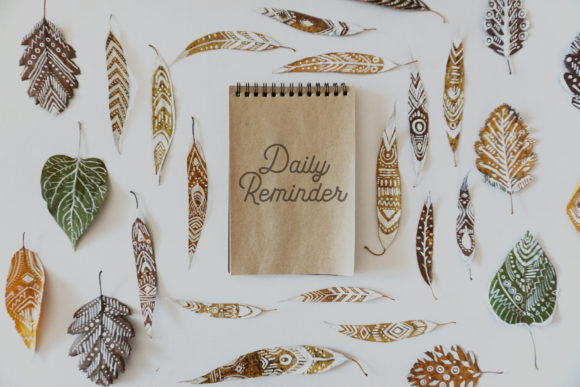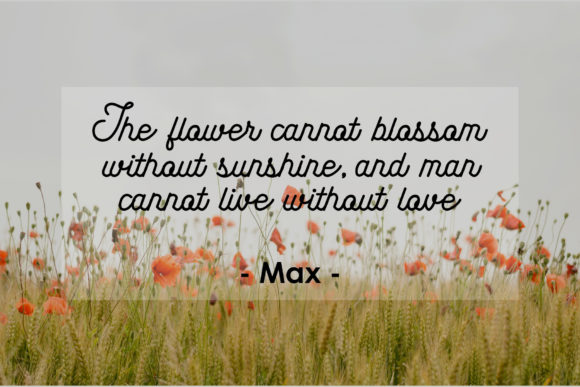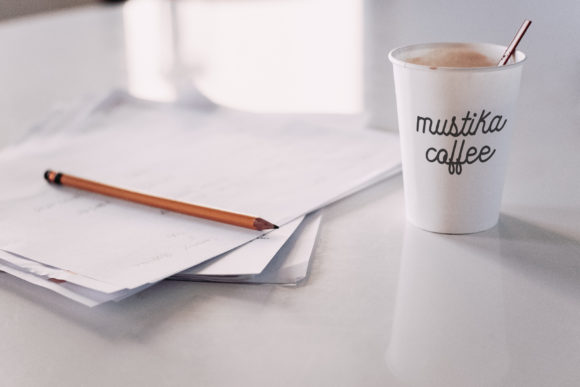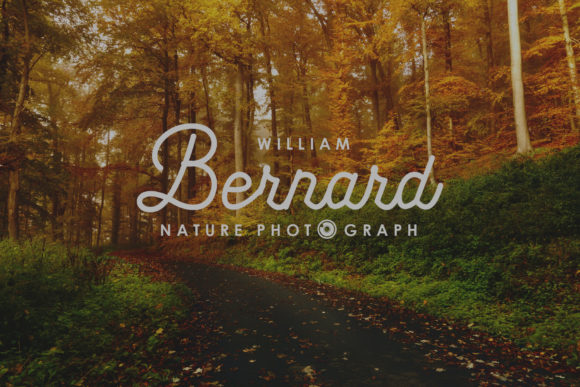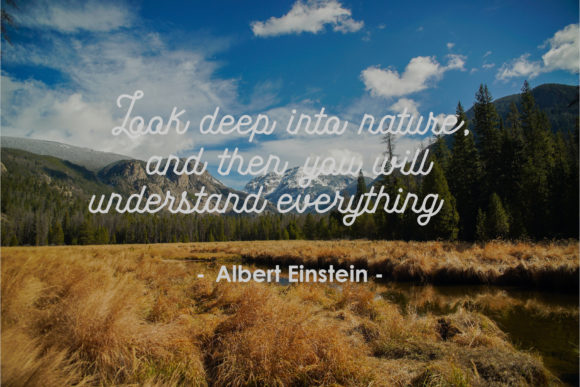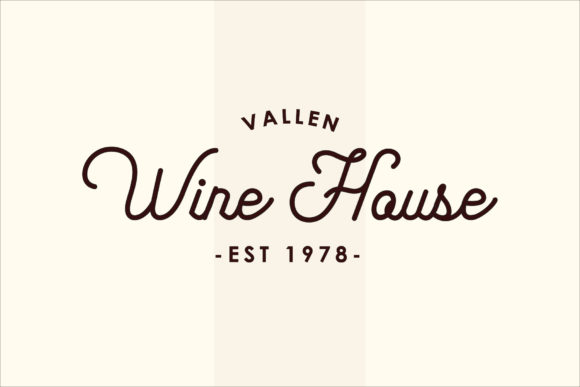
Buster Font: A Highly Detailed Vintage Styled Handwritten Font
Are you a designer or crafter looking for a unique and versatile font to elevate your creative projects? Look no further than Buster Font, a highly detailed vintage styled handwritten font that’s perfect for a wide range of applications. In this article, we’ll dive into the features and benefits of Buster Font, and explore how it can be used to add a touch of elegance and sophistication to your designs.
What is Buster Font?
Buster Font is a beautifully crafted handwritten font that’s inspired by traditional vintage typography. With its intricate details and classic feel, it’s perfect for designers and crafters who want to add a touch of nostalgia and charm to their work. Whether you’re creating logos, wedding invitations, headings, t-shirts, letterhead, signage, labels, news, posters, badges, or any other type of design, Buster Font is an excellent choice.
Key Features of Buster Font
- Highly detailed and intricate design: Buster Font features intricate details and classic flourishes that give it a unique and sophisticated look.
- Vintage styled: Inspired by traditional vintage typography, Buster Font has a timeless feel that’s perfect for designs that require a classic touch.
- Handwritten: With its handwritten feel, Buster Font adds a personal touch to any design, making it perfect for projects that require a more human and approachable look.
- Versatile: Buster Font can be used for a wide range of applications, from logos and headings to wedding invitations and posters.
Benefits of Using Buster Font
So why choose Buster Font for your design projects? Here are just a few benefits of using this amazing font:
- Adds elegance and sophistication: Buster Font’s classic feel and intricate details add a touch of elegance and sophistication to any design.
- Perfect for branding and marketing: With its unique and memorable look, Buster Font is perfect for logos, headings, and other branding materials.
- Great for creative projects: Whether you’re creating wedding invitations, posters, or t-shirts, Buster Font is a great choice for any creative project that requires a personal touch.
- Easily readable: Despite its intricate details, Buster Font is easily readable, making it perfect for designs that require a clear and concise message.
How to Use Buster Font
Using Buster Font is easy! Here are a few tips to get you started:
- Pair it with other fonts: Buster Font looks great when paired with other fonts, such as sans-serif fonts or script fonts.
- Experiment with colors: Try using Buster Font in different colors to add depth and interest to your design.
- Pay attention to spacing: Make sure to leave enough space between letters and words to ensure that Buster Font’s intricate details are showcased.
In conclusion, Buster Font is a highly detailed vintage styled handwritten font that’s perfect for designers and crafters looking to add a touch of elegance and sophistication to their creative projects. With its intricate details, classic feel, and versatile design, Buster Font is an excellent choice for a wide range of applications. Whether you’re creating logos, wedding invitations, headings, t-shirts, or any other type of design, Buster Font is sure to impress.